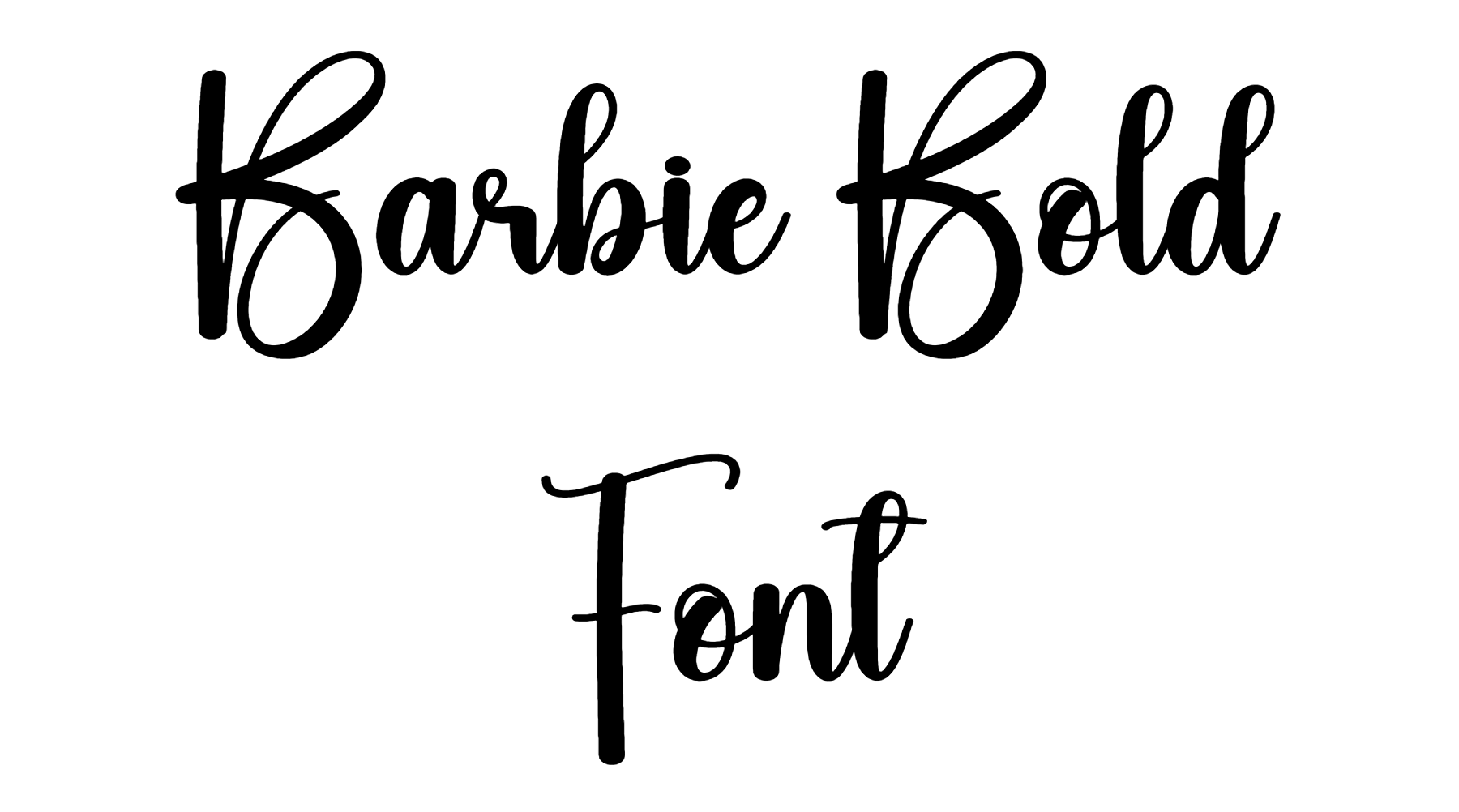
Barbie Bold
Barbie Bold is a script font. It has that hand-lettered, flowing feel people look for when regular type seems too stiff. You can download it for free and test it with your own words in the preview above.
What You Can Type With Barbie Bold
You get every letter from A to Z in both cases and all the numbers from 0 to 9, which means Barbie Bold can handle full sentences, dates and prices. Common punctuation such as &, !, ? and @ is included as well. It also has the accented letters you need for Spanish, French, German, Portuguese and Italian.
Ligatures and Smart Letters in Barbie Bold
Where Barbie Bold Works Best
Barbie Bold is a natural fit for wedding invitations, logos and signature-style headings. Its lowercase letters are small compared to the capitals, so set it a size or two bigger than usual. The file has no kerning data, so in logos and big titles check pairs like AV, To and Wa and tighten the spacing by hand. Script fonts read best in short bursts, so keep it to names, titles and one-line quotes. Skip all caps: script capitals are drawn to start a word, not to fill one.
Does Barbie Bold have ligatures?
Yes. Barbie Bold has ligatures that turn on by themselves in most design apps and browsers, so you don't need to do anything special.
Does Barbie Bold support accented letters?
Yes. Barbie Bold includes the accented letters needed for Spanish, French, German, Portuguese and Italian, so it works for more than just English.